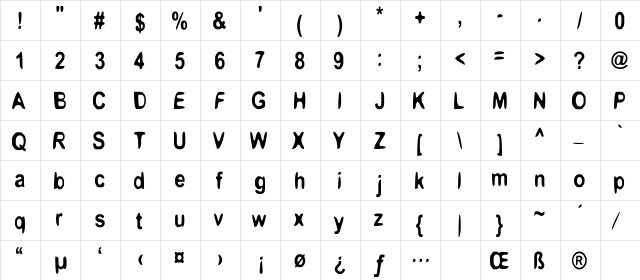
boomerang monkey normal
Design Context for boomerang monkey Typeface
boomerang monkey offers clean, dependable letterforms without strong stylistic allegiance, making it a practical choice for designers who need flexibility.